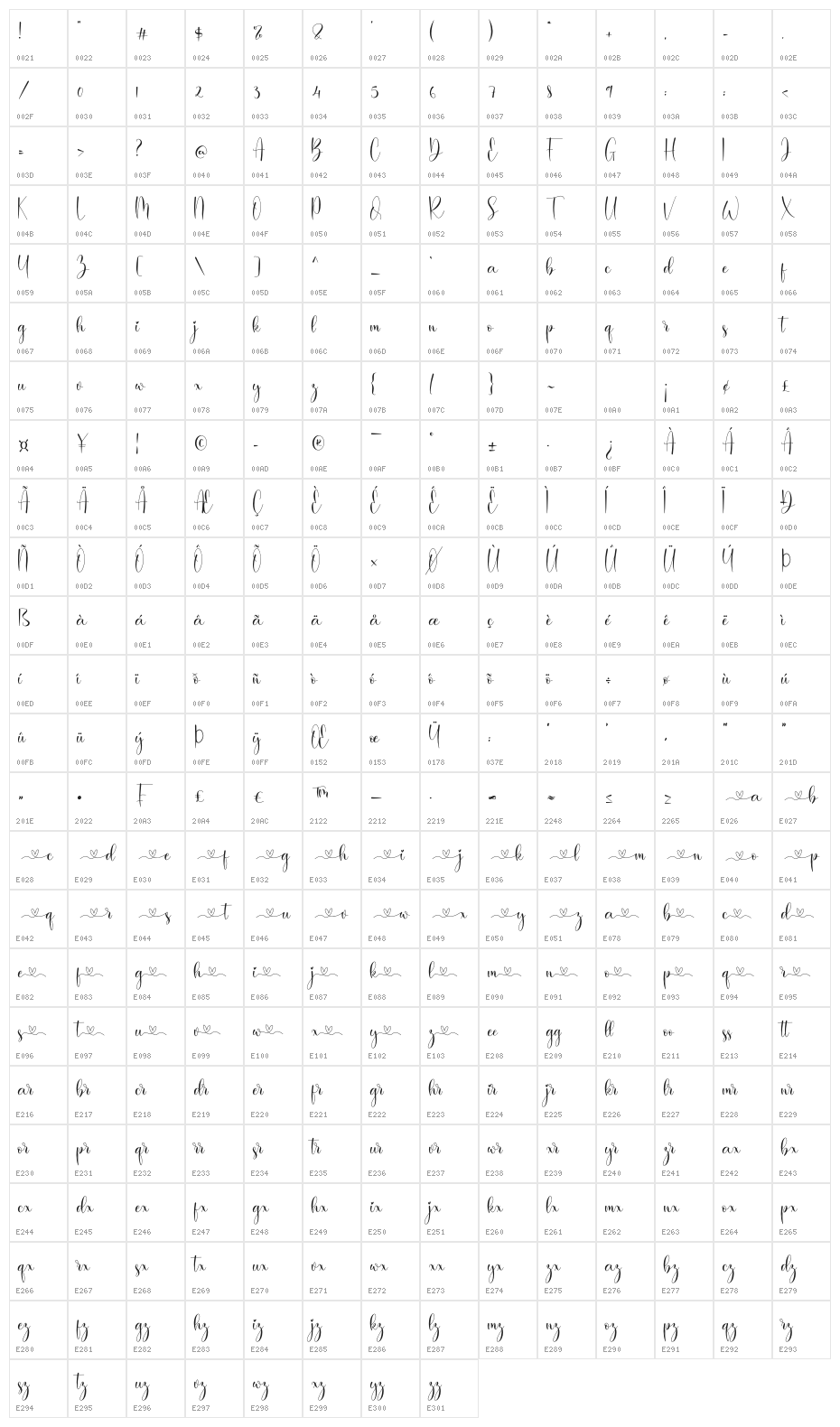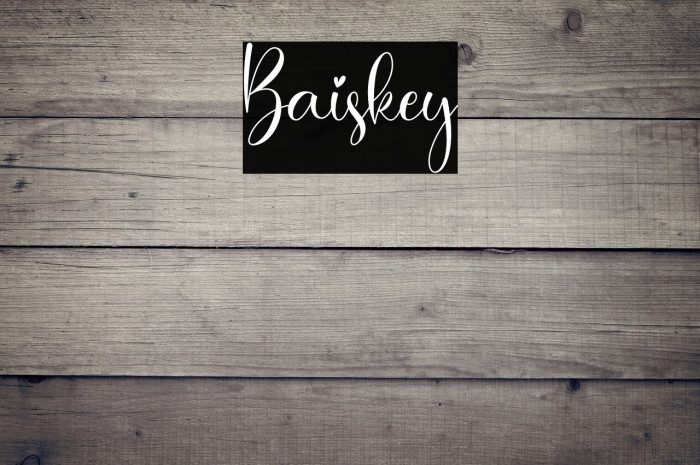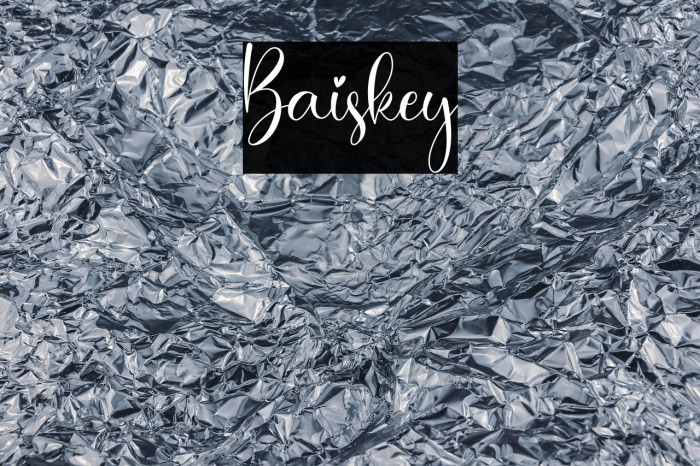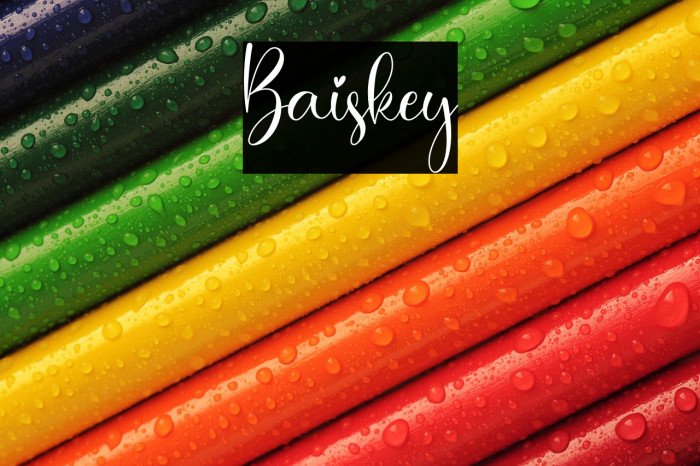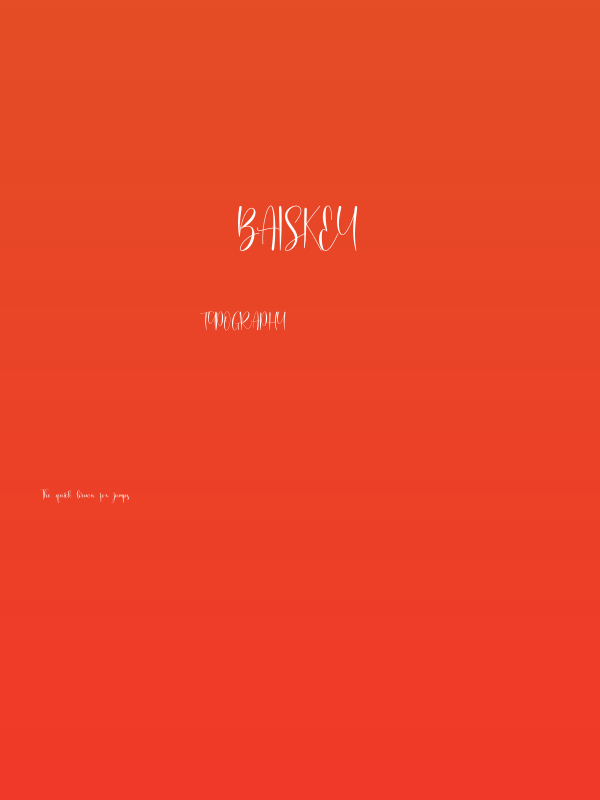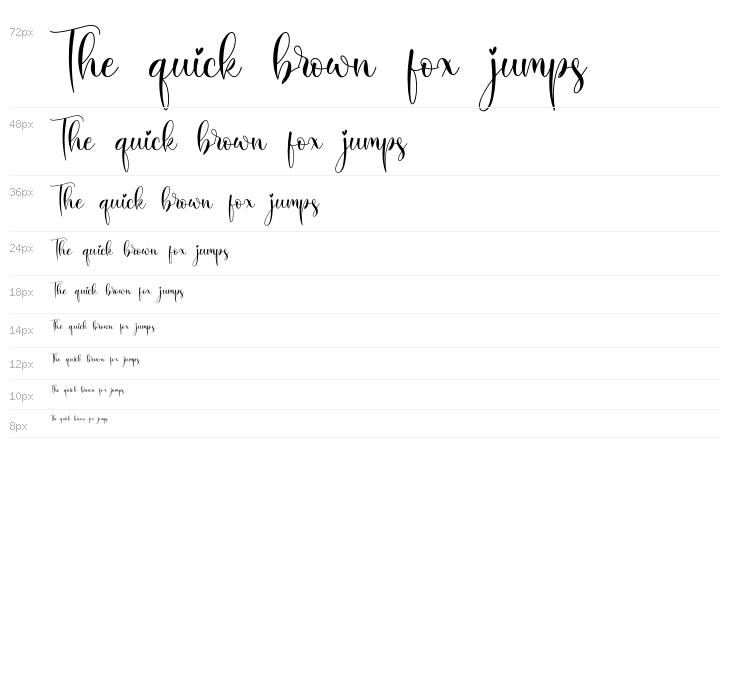
Baiskey Font
Baiskey Description
This font exudes a playful and elegant charm with its flowing, cursive style. The uppercase letters are tall and slender, featuring graceful loops and swashes that add a touch of sophistication. The lowercase letters maintain a consistent style, with smooth curves and a slight slant that enhances readability. The numerals are distinctive, maintaining the font's overall whimsical aesthetic. Special characters are thoughtfully designed, integrating seamlessly with the rest of the typeface. This font is perfect for projects that require a personal, handwritten touch, such as invitations, greeting cards, and branding materials.
| Use Case | Logos, Invitations, Greeting Cards |
| Proposed Projects | Ideal for wedding invitations, greeting cards, personal branding, and decorative signage. |